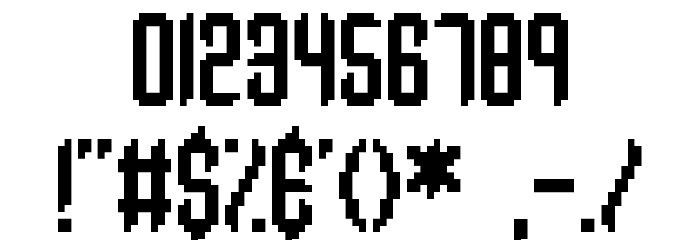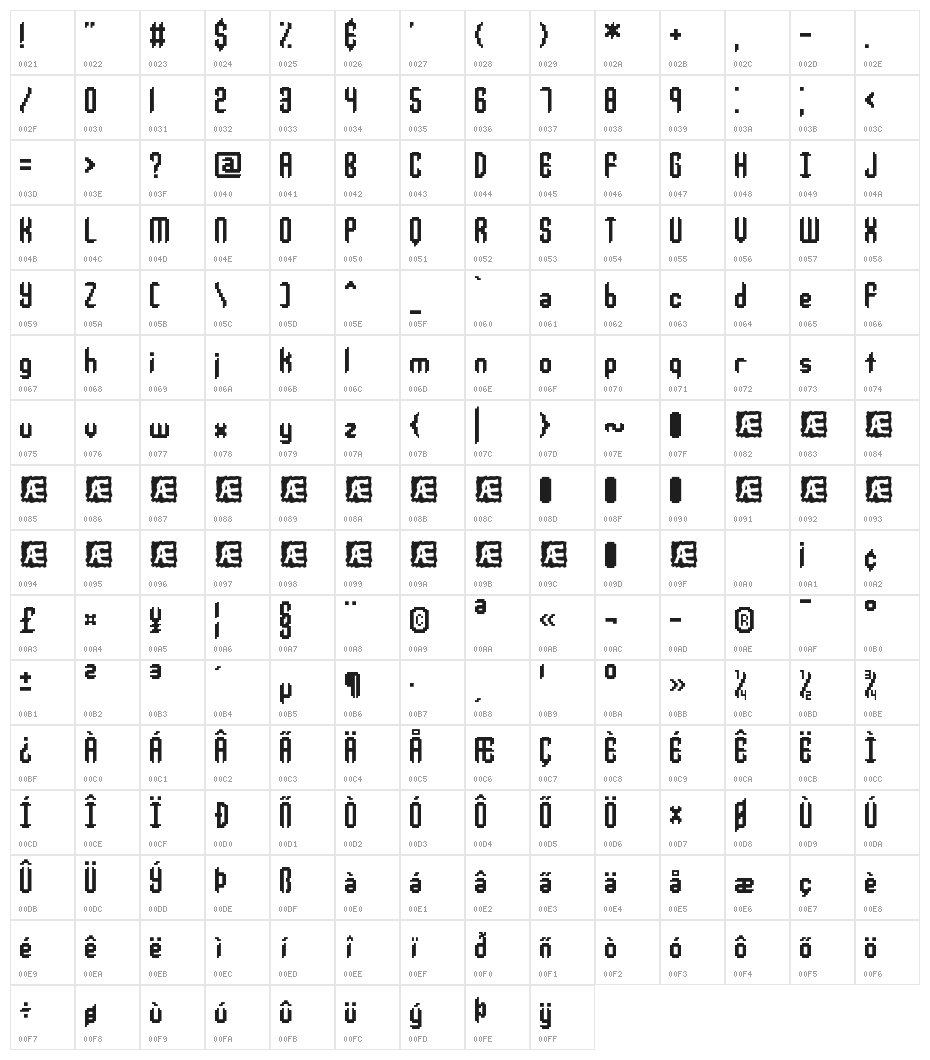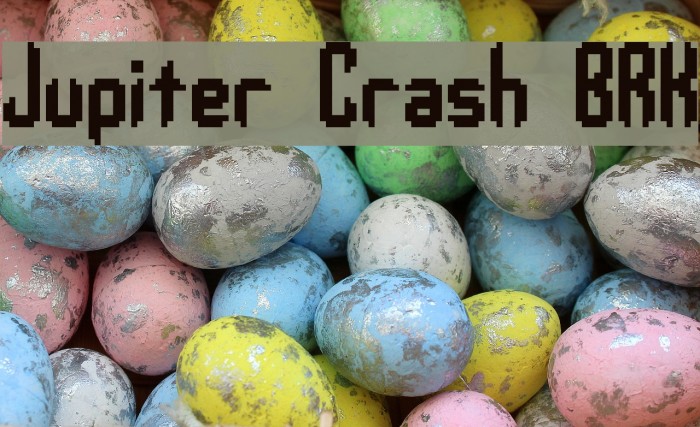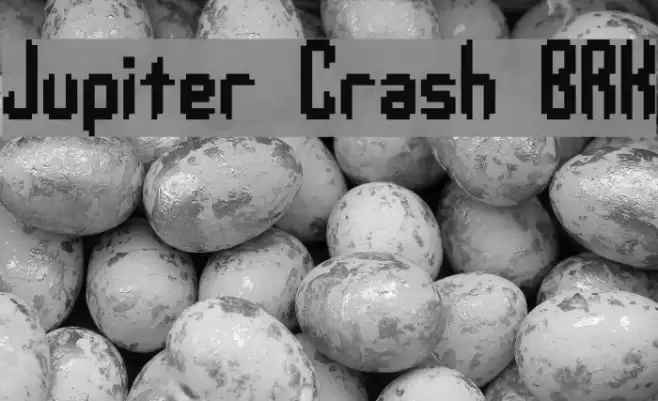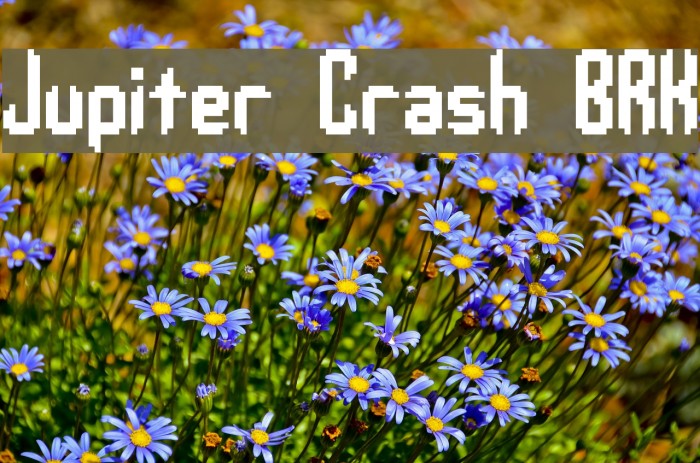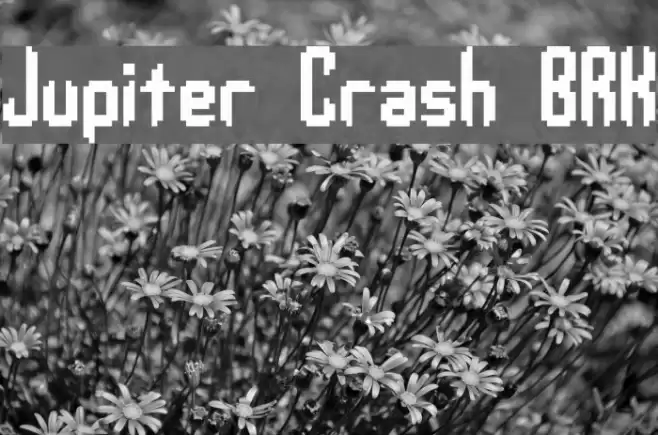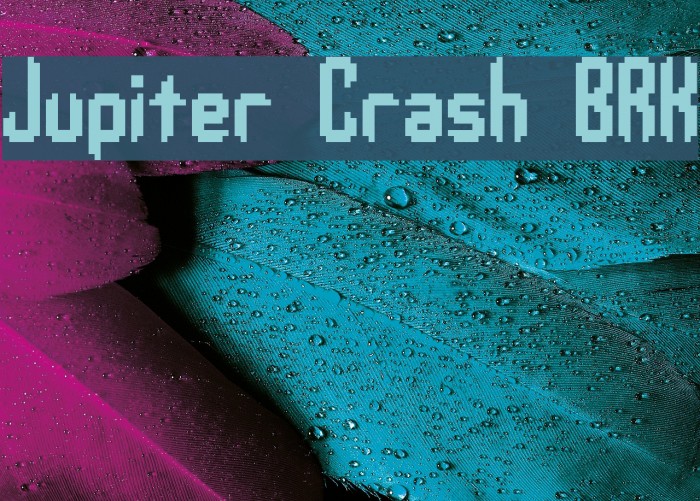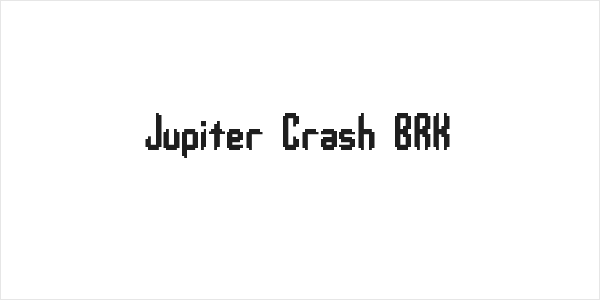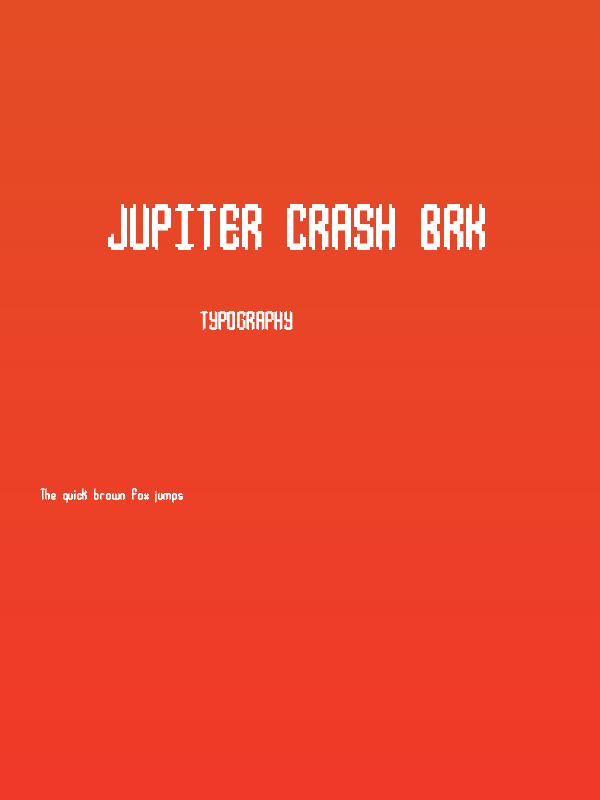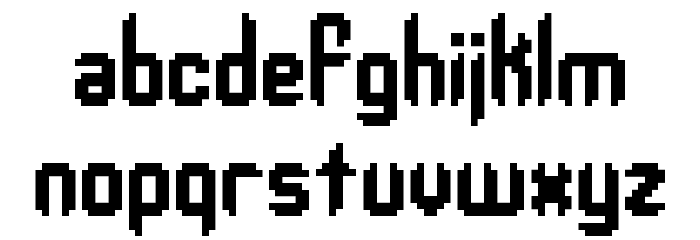
Jupiter Crash BRK Font
Jupiter Crash BRK Description
This font features a bold, pixelated style reminiscent of retro video games and digital displays. The characters are blocky and geometric, with a consistent stroke width that gives it a uniform appearance. The uppercase and lowercase letters maintain a similar height, enhancing its digital aesthetic. Numbers and special characters follow the same design principles, ensuring a cohesive look across all elements. The font's distinct, angular shapes make it highly legible and suitable for attention-grabbing designs.
| Proposed Projects | Ideal for video game graphics, tech-themed posters, digital art projects, and retro-style branding. |